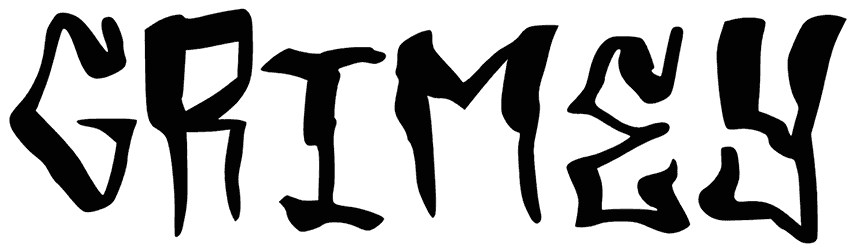
Grimey Font
Would you like to show a creepy and cool design with wavy words? This ghost font, with its unique hand-lettering, would be a great choice to make it happen. Grimey is a scary, fancy font that doesn’t cover lowercase letters and most punctuation marks, but it would be a distinct illustration for a lot of projects, from movie posters to game screens.